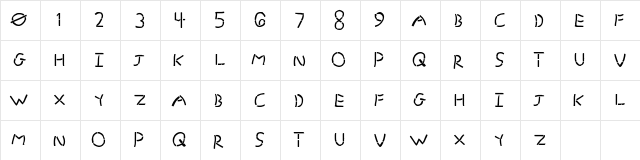
GrandStencil Regular
Design Context for GrandStencil Typeface
GrandStencil has the rough pragmatism of spray-painted stencil signage, adding a raw, street-level authenticity to designs.
A strong choice for packaging that needs edge, warehouse aesthetics, and rough-and-ready visual identities.
Pro Tip: Use GrandStencil at large sizes on packaging, posters, or apparel where the stencil cutaways read clearly. Avoid small sizes where those gaps become visual noise.